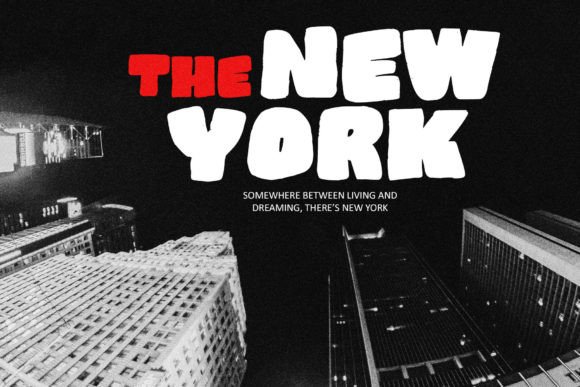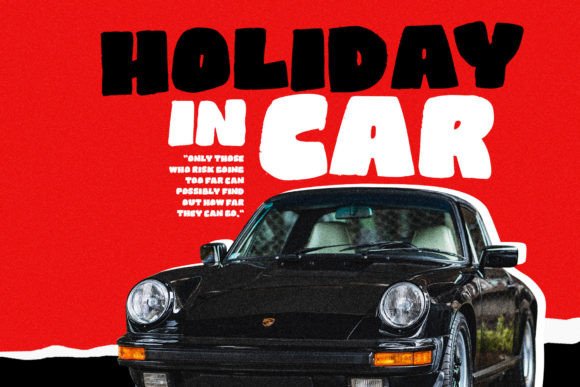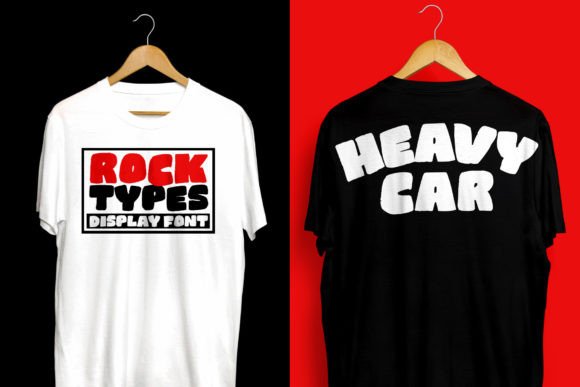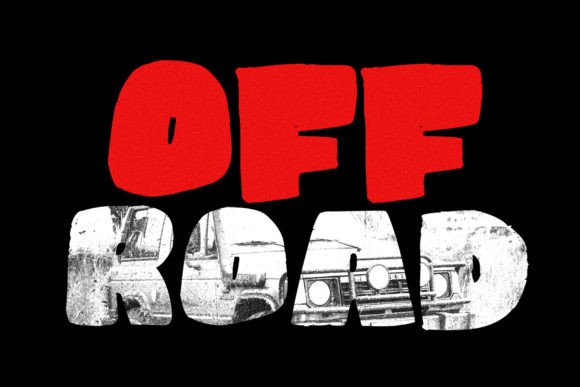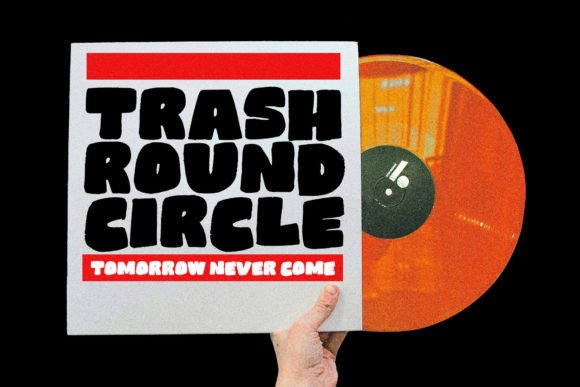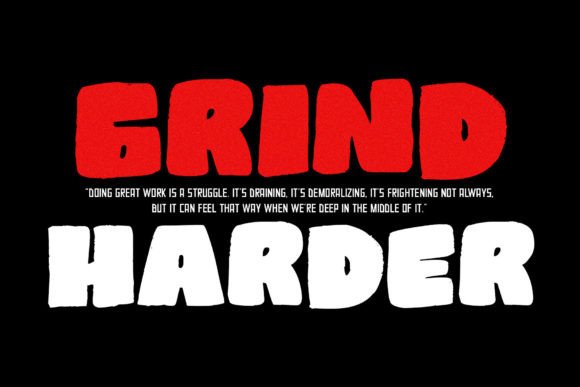
Introduction to Rocktypes Font
Rocktypes is a thick and bold display font.
It is the perfect addition to you invitations, banners, soical media, flyers, child related projects, scrapbooking and so much more .
Key Features of Rocktypes Font
Why Choose Rocktypes Font?
Rocktypes Font offers exceptional quality and versatility, making it a valuable addition to your design toolkit. Whether you’re creating for personal projects or commercial use, Rocktypes Font delivers professional results.